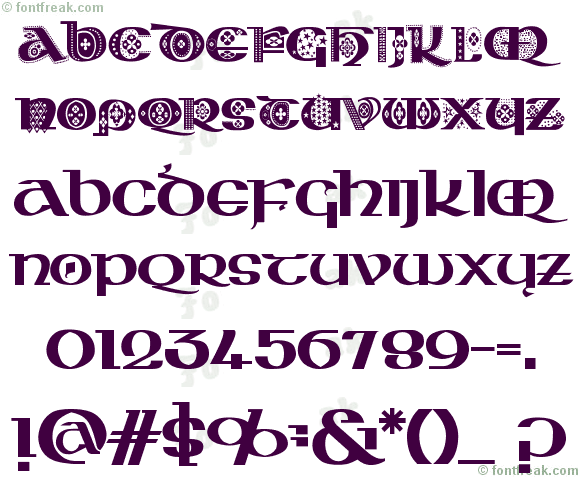
Kingthings Kelltika
Kelltika is a distinctive display font designed by Kevin King in 2003, available as freeware. Characterized by its unique blend of artistic flair and readability, this font falls into the decorative category, making it an ideal choice for projects that require a touch of creativity. The Kelltika font exhibits a playful stroke weight with varying contrasts, which adds depth and visual interest. Its spacing is carefully balanced, ensuring that each letter stands out while maintaining harmony within words. The font features whimsical decorative elements that evoke a sense of charm and uniqueness, making it particularly eye-catching.
This font excels in various creative applications. It works beautifully for wedding invitations, where its artistic style can add elegance and personalization. Kelltika is also a fantastic choice for movie posters, lending a dramatic flair that captures attention. Additionally, it can enhance restaurant menus, providing a unique visual identity that reflects the establishment’s atmosphere. Content creators looking for a standout font for social media graphics or branding will find Kelltika a valuable asset.
What sets the Kelltika font apart is its ability to combine artistic expression with practical usability. Its unique design elements allow for creative exploration while ensuring clarity in communication. For those interested in enhancing their design projects, a Kelltika font free download is readily available, offering an exciting opportunity to incorporate this charming typeface into your work.